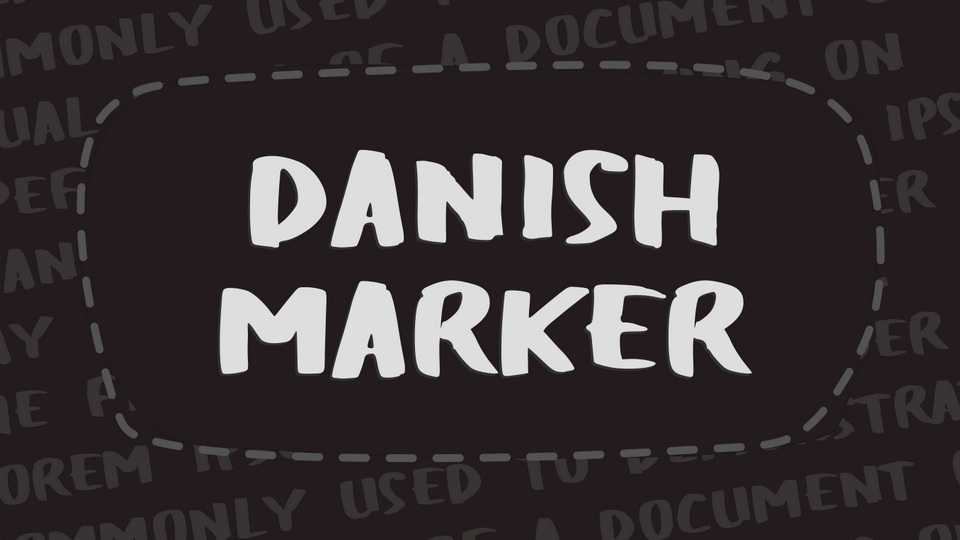
Download Danish Marker font, a simple marker typeface designed for an authentic expression of handwritten text. Danish Marker is perfect for crafting projects, headings, blogs, logos, branding, business cards, websites, invitations, shirts, mugs, and more.
Designer: Joe Letter